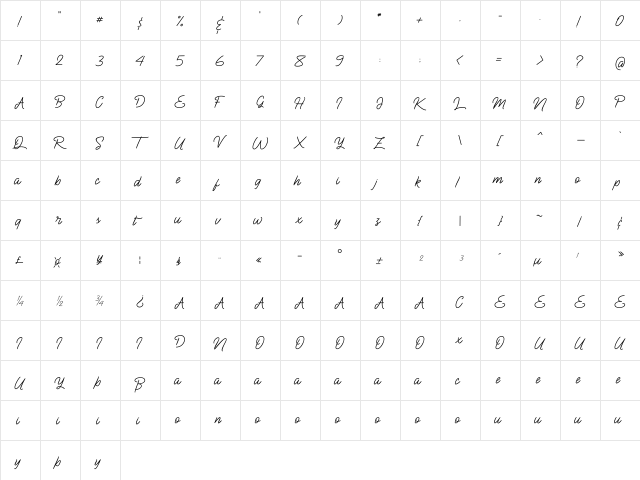
BlueQueen Regular
Design Context for BlueQueen Typeface
BlueQueen is a composed and adaptable typeface that performs quietly and consistently across a wide range of design contexts.
Pro Tip: Use BlueQueen in both headline and body roles to test its range before committing to a single application.